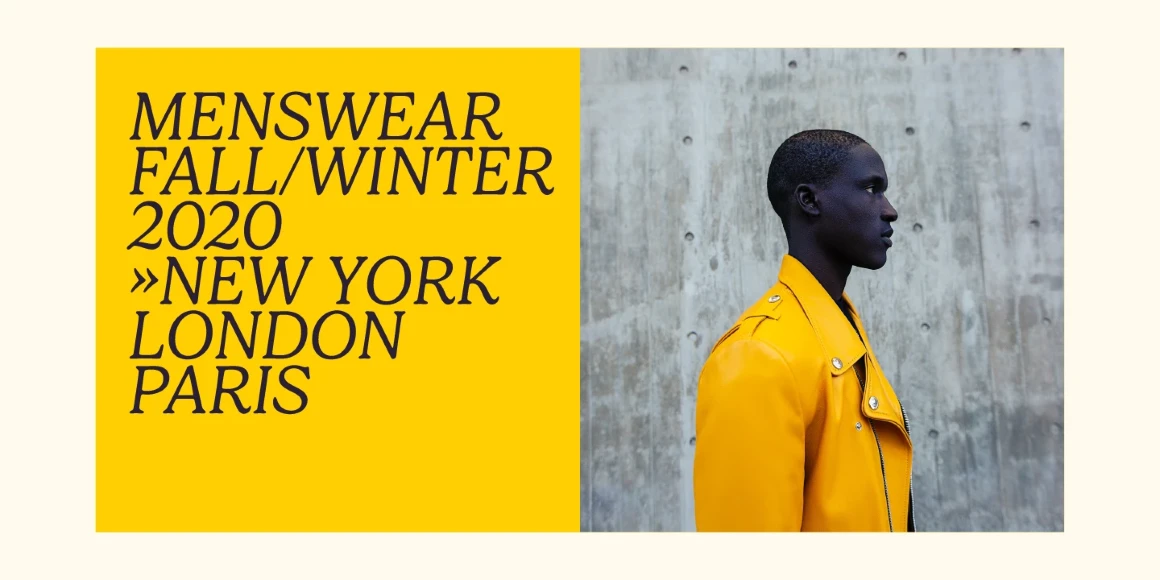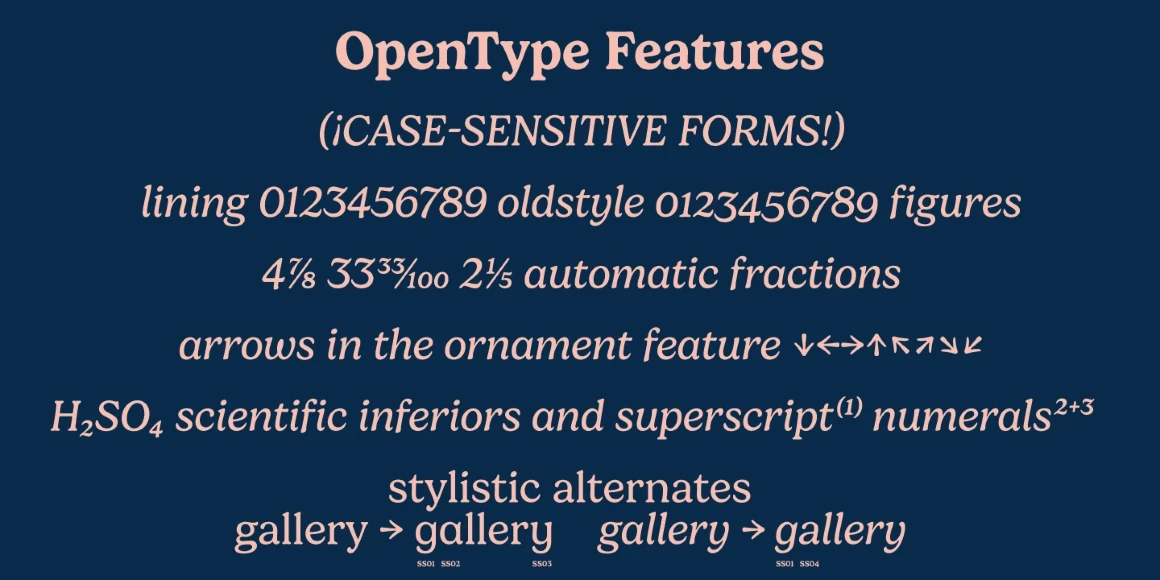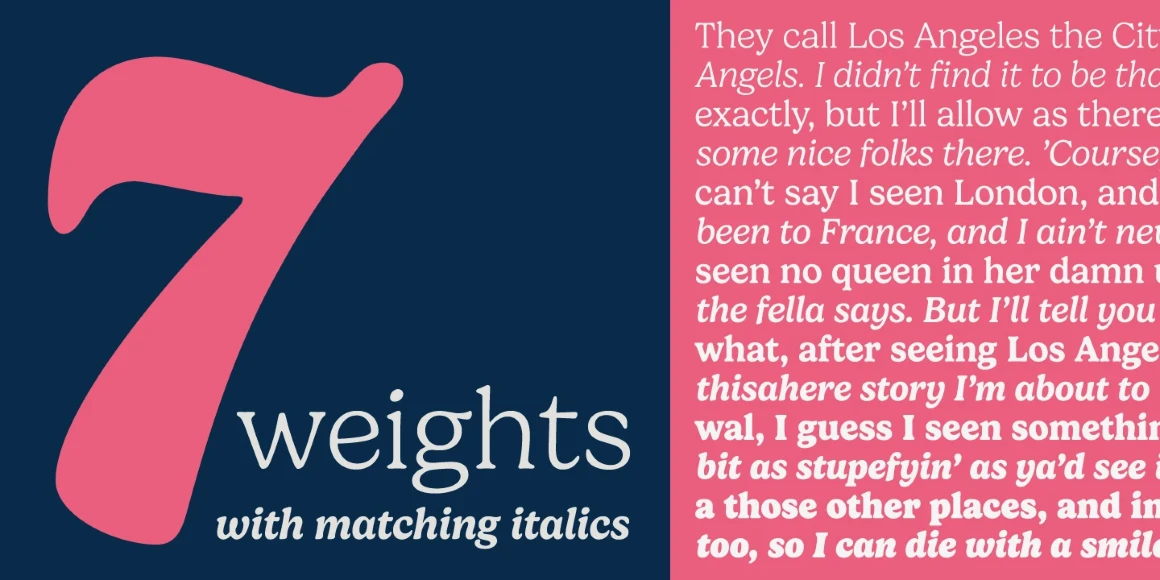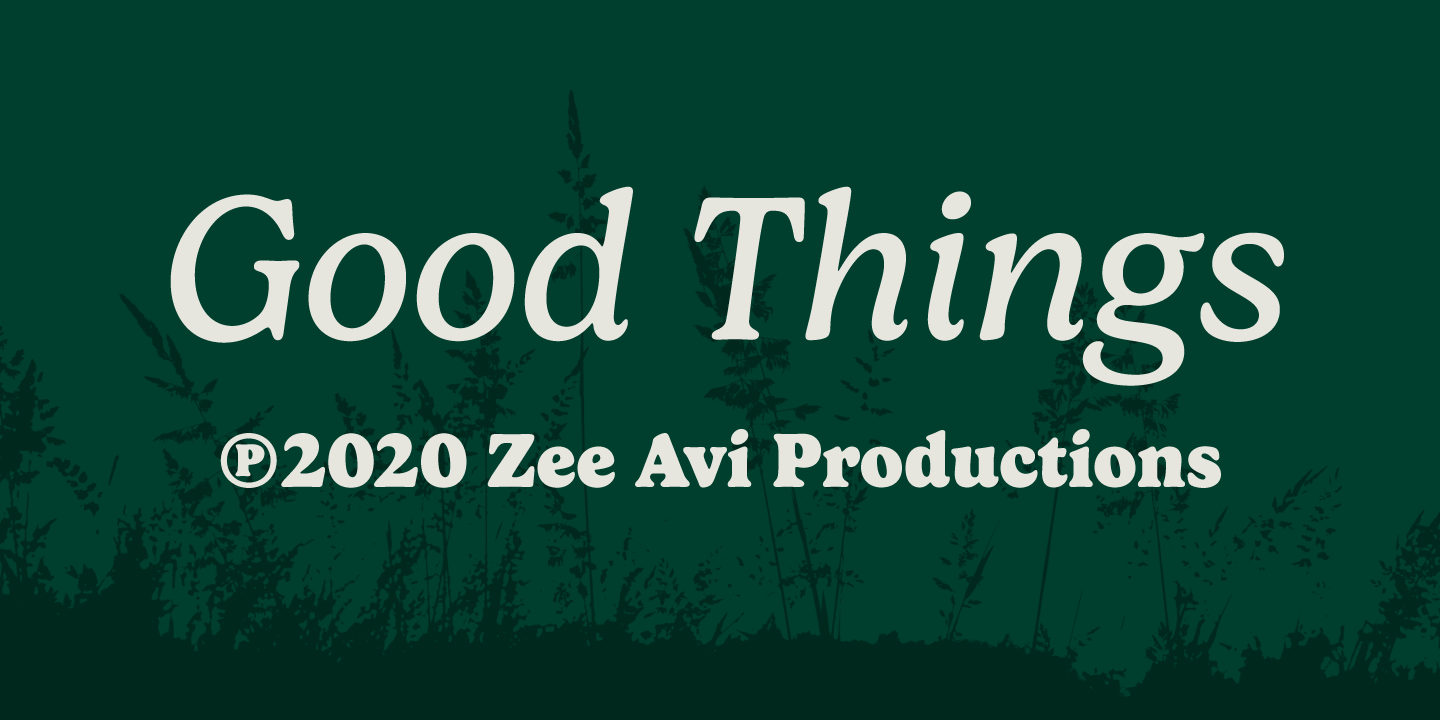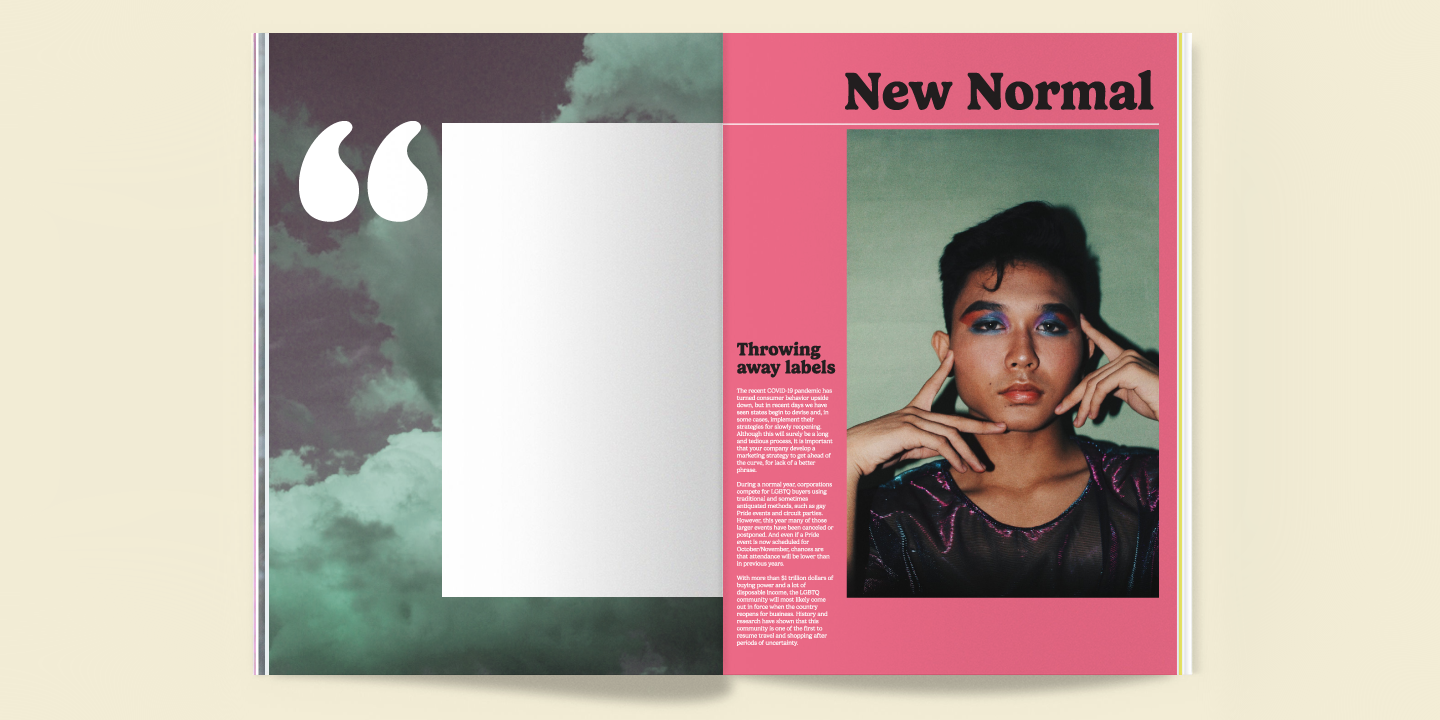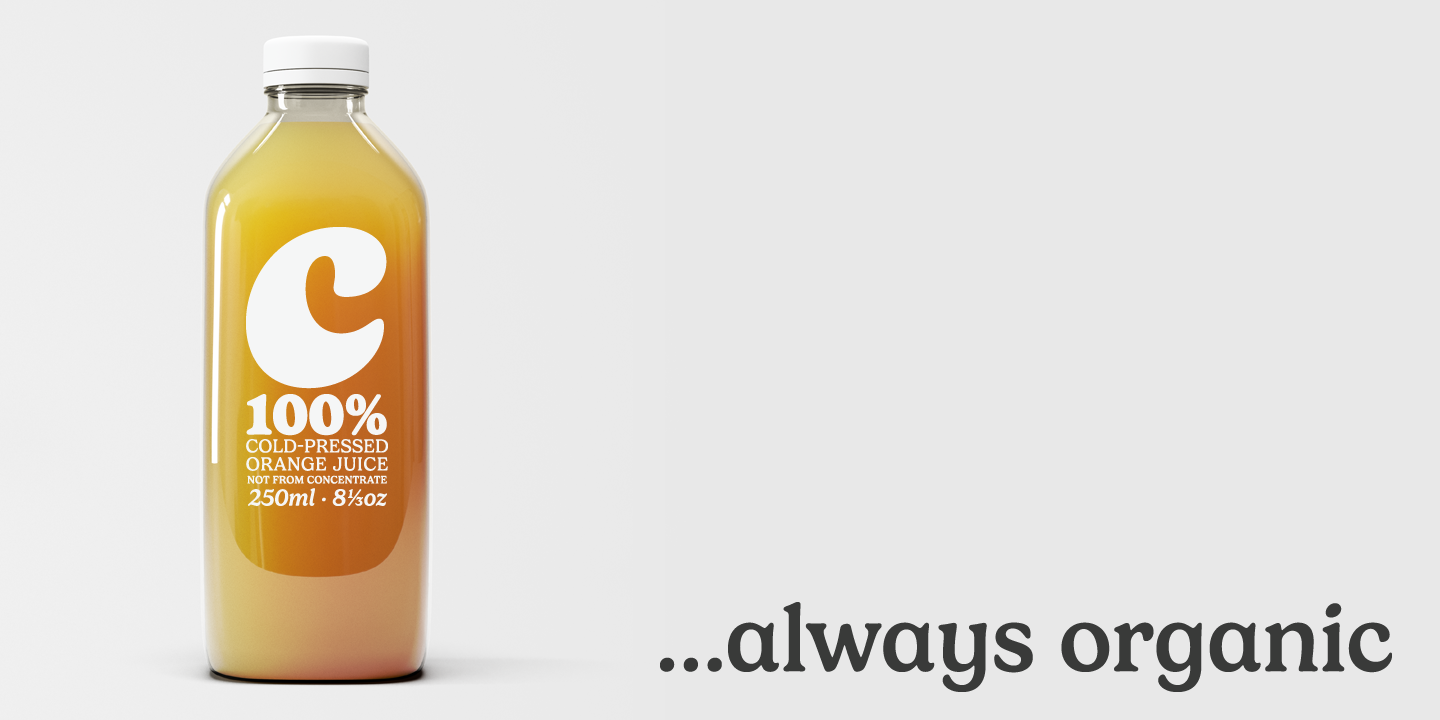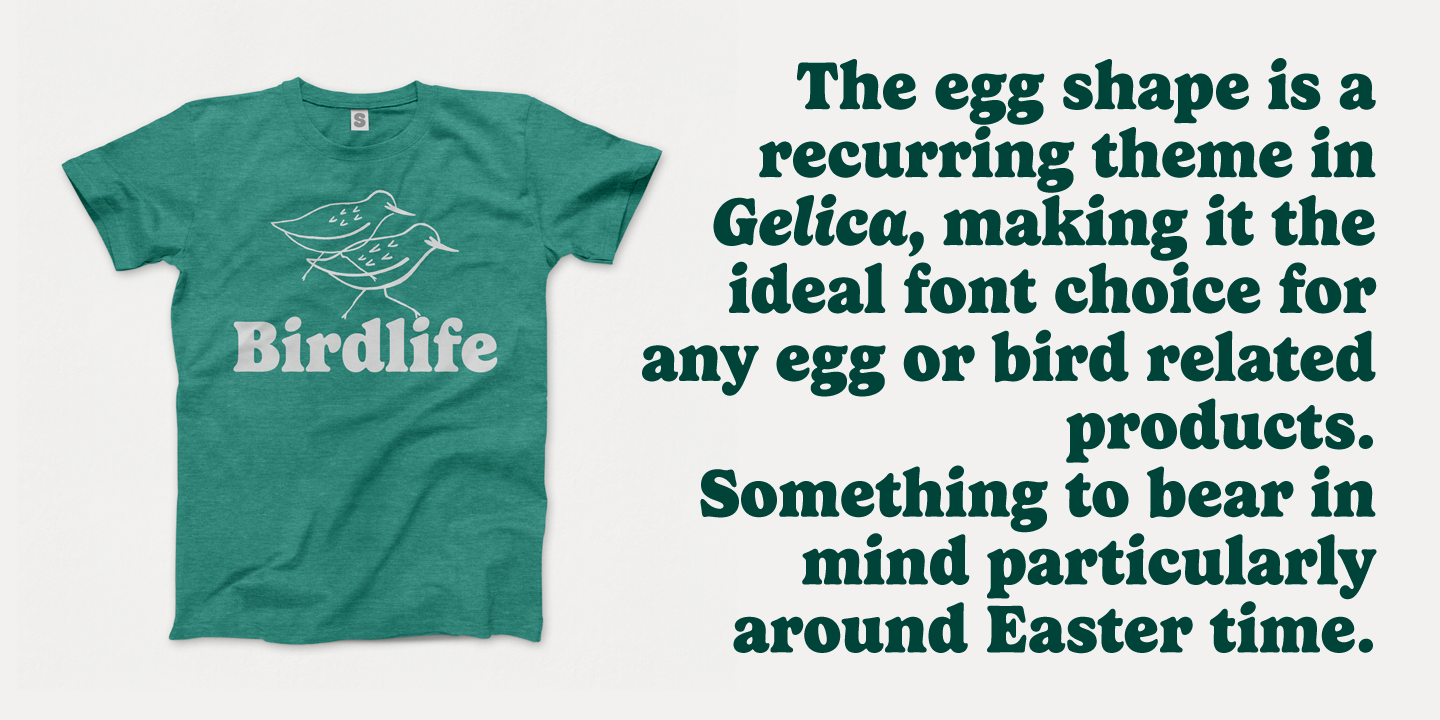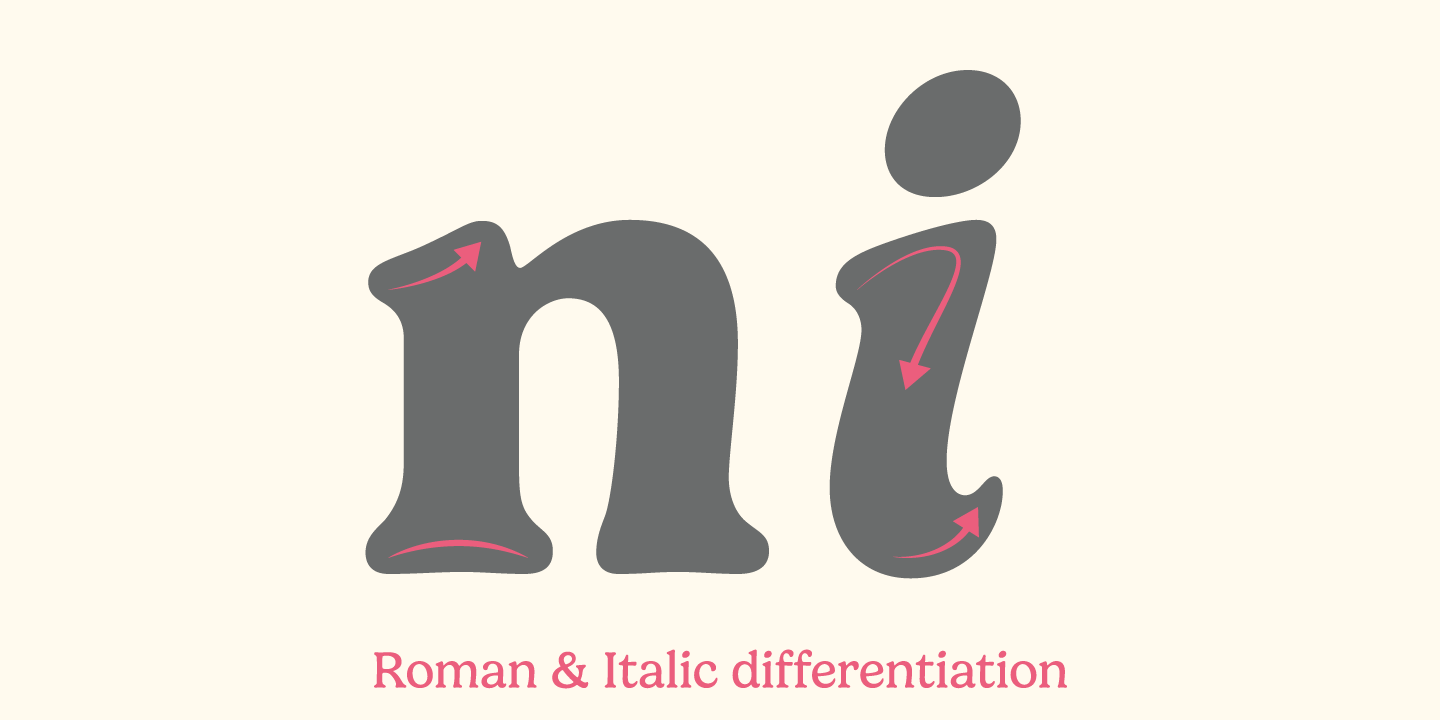
Gelica
By Dave Rowland
Gelica is a soft serif typeface that will remind most of Cooper. In truth, the family owes more to Goudy Heavyface and Ludlow Black, particularly in the concave serifs. Dave Rowland wanted the design to be friendly, not cutesy, and usability was always the prime concern. A helpful weight range with italics was a must, too. This is a display face, first and foremost. But, with a bit of tracking, it works well at smaller sizes for longer text, supporting a more exuberant titling font.